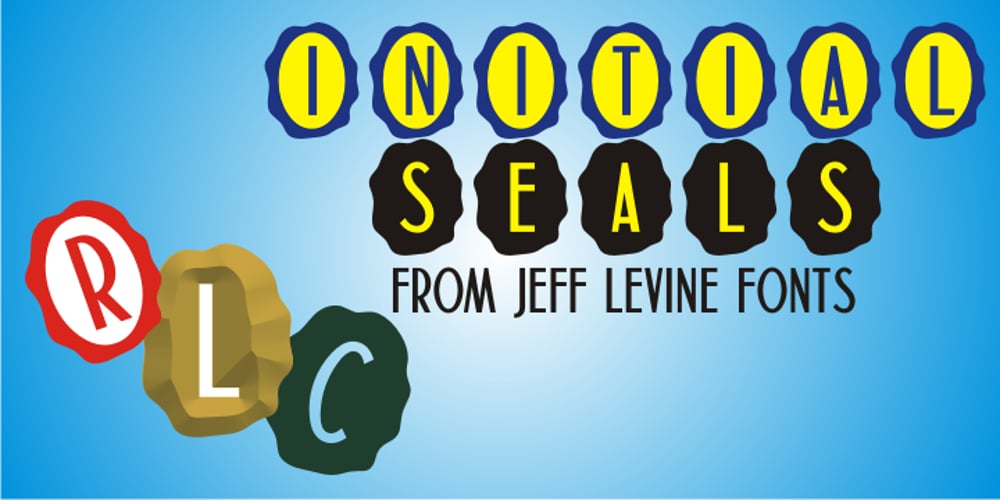
Initial Seals JNL
Initial Seals JNL font
Initial Seals JNL Font Family was designed by Jeff Levine and published by Jeff Levine. Initial Seals JNL contains 1 styles and family package options. Initial Seals JNL was created by utilizing the typeface from Gummed Letters JNL and one of the decorative dingbats from Miscellany JNL. On the capital A-Z keys, the letters are black on a white on black seal design, while the lower case a-z keys have a seal version in solid black with white letters. Corresponding blank versions of the seals are on the left and right parenthesis keys, and the period key has a fill oval for overlaying background colors onto the black and white set.